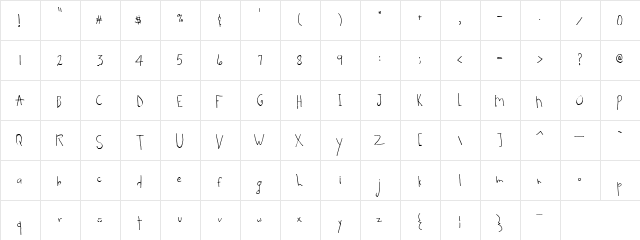
Beedey reegular
Design Context for Beedey Typeface
Beedey is a composed and adaptable typeface that performs quietly and consistently across a wide range of design contexts.